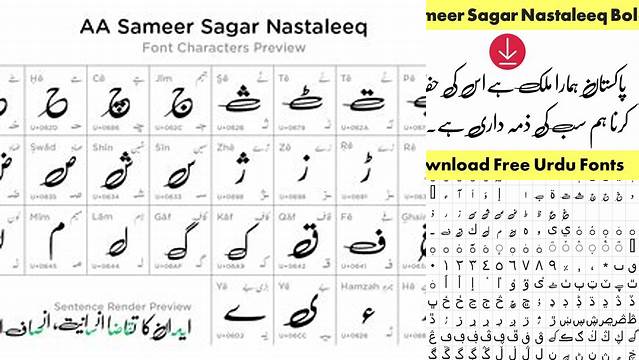
Urdu Fonts: Mastering Sameer Sagar Nastaleeq Bold
Introduction to Urdu Calligraphy and Fonts
Hey guys! Let's dive into the beautiful world of Urdu calligraphy and fonts, specifically focusing on the Sameer Sagar Nastaleeq Bold style. Urdu, a language known for its poetic and expressive qualities, owes much of its charm to its elegant script. The art of Urdu calligraphy, deeply rooted in Persian and Arabic traditions, has evolved over centuries, resulting in a rich tapestry of calligraphic styles. Among these, Nastaleeq stands out as the most popular and aesthetically pleasing script, widely used in Urdu literature, newspapers, and digital media. Understanding the nuances of Urdu fonts is essential for anyone looking to engage with Urdu text in a visually appealing and culturally sensitive manner. Whether you are a designer, a student of Urdu literature, or simply someone who appreciates the beauty of written language, a solid grasp of Urdu font styles will be incredibly valuable. So, what makes Urdu calligraphy so special? Well, its flowing curves, intricate ligatures, and the delicate balance between thick and thin strokes create a visual harmony that is captivating. The challenge, however, lies in replicating this beauty in the digital world. This is where fonts like Sameer Sagar Nastaleeq Bold come into play, bridging the gap between traditional artistry and modern technology.
The Significance of Nastaleeq Script
The Nastaleeq script, often regarded as the “bride of scripts,” holds a central position in Urdu calligraphy. Its origins can be traced back to Persia in the 14th century, and it quickly became the preferred script for Persian and Urdu literature. What sets Nastaleeq apart is its unique diagonal flow, where letters appear to hang from an imaginary baseline. This gives the script a distinctive rhythm and elegance that is unmatched by other calligraphic styles. The fluid and cursive nature of Nastaleeq makes it visually appealing and highly legible, contributing to its widespread adoption across various media. In the context of Urdu, Nastaleeq is not merely a script; it's a cultural symbol, deeply intertwined with the language's identity. From classic poetry to contemporary novels, from religious texts to everyday newspapers, Nastaleeq script permeates every aspect of written Urdu. Its presence evokes a sense of tradition and sophistication, making it an indispensable element of Urdu visual communication. Therefore, when we talk about Urdu fonts, Nastaleeq is inevitably the starting point, and understanding its characteristics is crucial for appreciating the nuances of fonts like Sameer Sagar Nastaleeq Bold.
Challenges in Digitizing Urdu Fonts
Digitizing Urdu fonts, especially Nastaleeq, presents a unique set of challenges. Unlike Latin scripts, which have a relatively straightforward structure, Urdu script involves complex ligatures and contextual variations. Ligatures are the joining of two or more letters to form a single glyph, and Urdu is replete with them. The shape of a letter can change depending on its position in a word – whether it's at the beginning, middle, or end – and which letters it's connected to. This contextual behavior requires a sophisticated font design that can handle these variations seamlessly. Traditional font technologies, primarily designed for Latin scripts, often struggle to accurately render the intricacies of Nastaleeq. This has led to the development of specialized font engines and technologies that can handle the complexities of Urdu script. Creating a high-quality Urdu font involves meticulous attention to detail, a deep understanding of calligraphic principles, and technical expertise in font design. The goal is to capture the essence of handwritten Nastaleeq while ensuring that the font is legible, scalable, and performs well across different platforms and devices. Fonts like Sameer Sagar Nastaleeq Bold represent the culmination of these efforts, offering a digital representation of Urdu script that is both aesthetically pleasing and functionally robust.
Introducing Sameer Sagar Nastaleeq Bold
Now, let’s get specific and talk about Sameer Sagar Nastaleeq Bold. This font is a fantastic example of how traditional calligraphy can be translated into a digital format while retaining its inherent beauty and readability. Sameer Sagar Nastaleeq Bold is a contemporary take on the classic Nastaleeq style, designed with a focus on clarity and visual impact. What makes it stand out? Well, it’s the bold weight, guys! The bold styling adds a strong presence to the text, making it ideal for headlines, titles, and other display purposes where you want to grab the reader's attention. But it's not just about being bold; the font also maintains the delicate balance and graceful curves that are characteristic of Nastaleeq. The result is a font that is both powerful and elegant, suitable for a wide range of applications. Whether you're designing a poster, creating a website, or formatting a document, Sameer Sagar Nastaleeq Bold can bring a touch of sophistication and authenticity to your Urdu text. But who is Sameer Sagar? The name behind the font often reflects the expertise and artistry of the designer. Understanding the background and design philosophy behind a font can give you a deeper appreciation for its nuances and how best to use it in your projects. So, let's explore the specific features and applications of this remarkable font.
Key Features and Design Elements
Sameer Sagar Nastaleeq Bold boasts several key features that make it a top choice for Urdu typography. First and foremost, the bold weight ensures high visibility and legibility, even at smaller sizes. This is particularly important in digital environments, where text needs to be clear and readable on various screen resolutions. The font's design meticulously preserves the characteristic diagonal flow and intricate ligatures of Nastaleeq script. Each letterform is carefully crafted to maintain the script's inherent rhythm and balance, resulting in a visually harmonious text. The font also includes a comprehensive set of glyphs, covering all the necessary characters and ligatures for Urdu and related languages. This ensures that you can use the font for a wide range of texts without encountering missing characters or rendering issues. Another notable feature is the font's attention to detail in kerning and spacing. Kerning refers to the adjustment of space between individual letter pairs to improve readability, while spacing refers to the overall spacing between words and lines. Sameer Sagar Nastaleeq Bold is designed with precise kerning and spacing, ensuring that the text flows smoothly and appears balanced. From a design perspective, the font strikes a perfect balance between tradition and modernity. It captures the essence of classic Nastaleeq calligraphy while incorporating contemporary design elements that make it suitable for modern applications. This versatility is one of the key reasons why Sameer Sagar Nastaleeq Bold is a popular choice among designers and typographers.
Applications and Use Cases
So, where can you use Sameer Sagar Nastaleeq Bold? The possibilities are vast! Its bold and elegant style makes it ideal for a variety of applications, both in print and digital media. In print, this font shines in headlines, titles, posters, and book covers. Its strong presence ensures that your message stands out and captures the reader's attention. It's also a great choice for formal documents, invitations, and certificates, where you want to convey a sense of sophistication and authenticity. In the digital realm, Sameer Sagar Nastaleeq Bold is perfect for website headings, banners, and social media graphics. Its legibility on screens makes it a reliable choice for web typography, ensuring that your Urdu content is easily readable. The font is also well-suited for mobile apps and digital publications, where clear and visually appealing text is essential for user engagement. Furthermore, Sameer Sagar Nastaleeq Bold can be used in branding and advertising materials to create a distinctive and memorable visual identity. Its unique blend of tradition and modernity makes it a versatile asset for any design project. Whether you're designing a logo, creating a marketing campaign, or developing a website, this font can help you communicate your message effectively and beautifully. Think about using it for Urdu-language newspapers, magazines, and online publications. It can bring a touch of elegance to news articles, features, and opinion pieces. And for those working on educational materials, Sameer Sagar Nastaleeq Bold can make textbooks, presentations, and online courses more visually engaging and accessible.